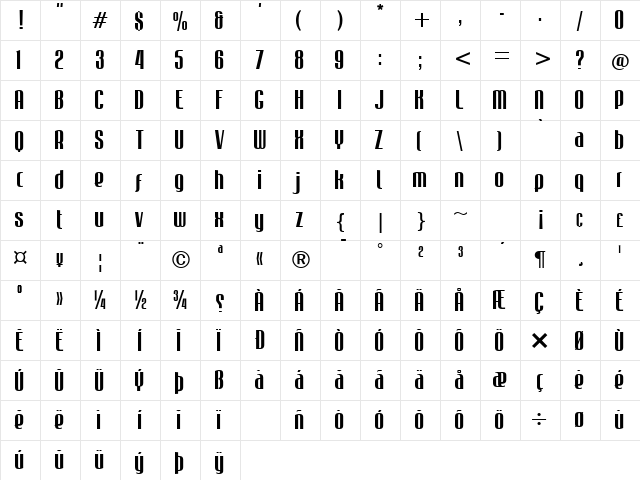
Mabella Regular Font Preview
Mabella Regular
Mabella Regular Font Details
| Copyright | Designed by Ramiro Espinoza. Buenos Aires - Argentina/ 2001. The name of this font -Mabella- is dedicated to Mabel Bellucci. |
Design Context for Mabella Typeface
Mabella offers clean, dependable letterforms without strong stylistic allegiance, making it a practical choice for designers who need flexibility.